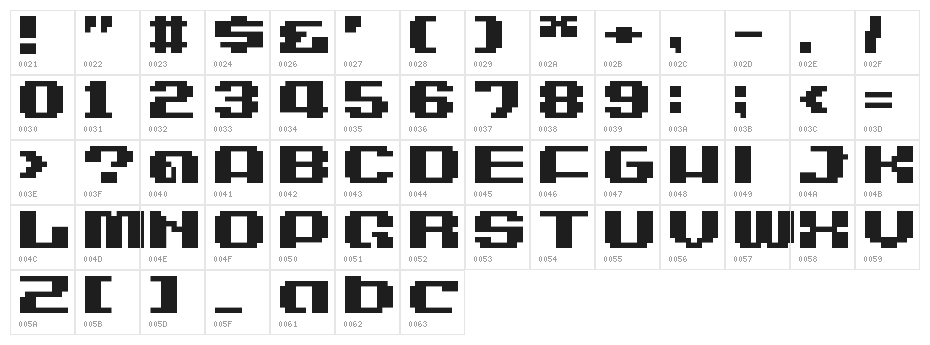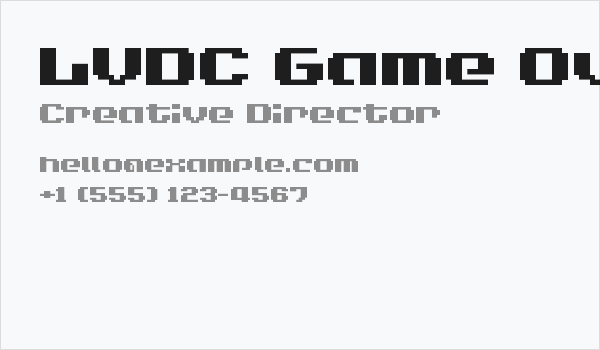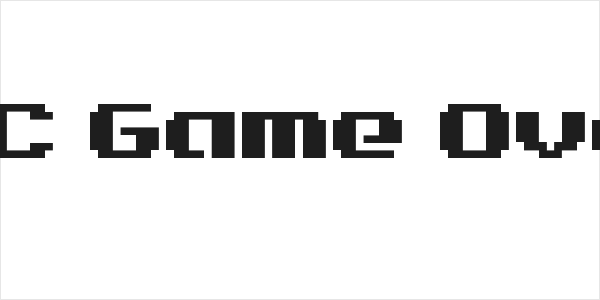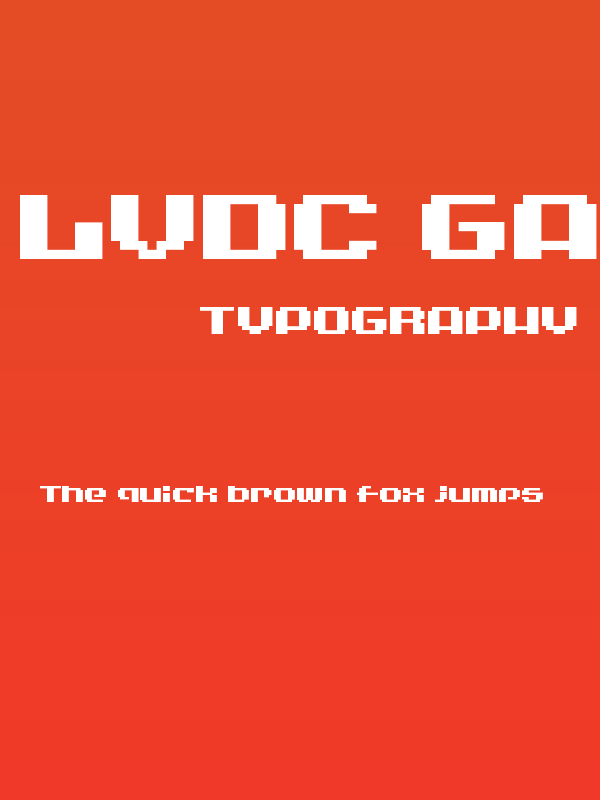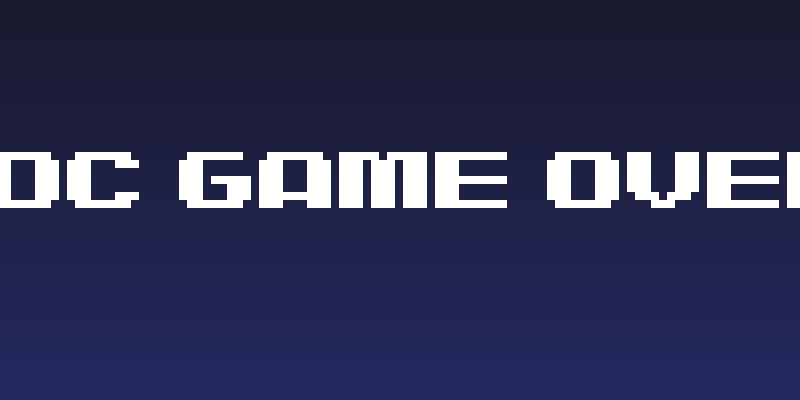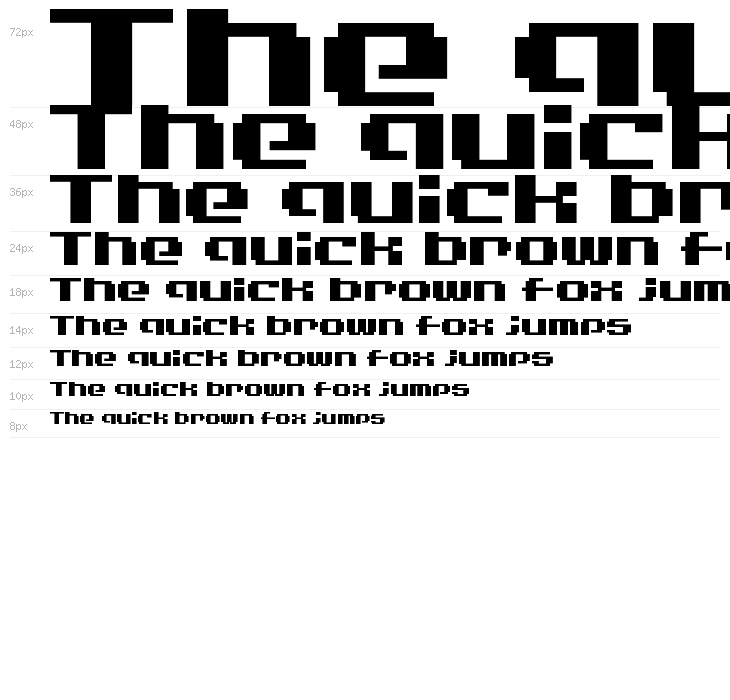
LVDC Game Over 2 Font
LVDC Game Over 2 Description
This font features a bold, pixelated style reminiscent of retro video games. The characters are blocky and geometric, with a uniform thickness that gives it a strong, impactful appearance. The uppercase and lowercase letters maintain a consistent design, enhancing readability while preserving the nostalgic aesthetic. Numbers and special characters follow the same pixelated theme, making it ideal for digital or gaming contexts. The overall look is both playful and assertive, capturing the essence of classic arcade games.
| Proposed Projects | Ideal for video game designs, retro-themed posters, digital art, and any project seeking a nostalgic gaming vibe. |